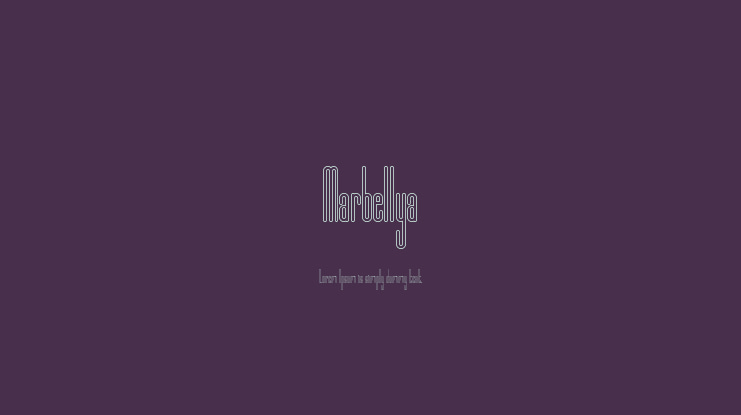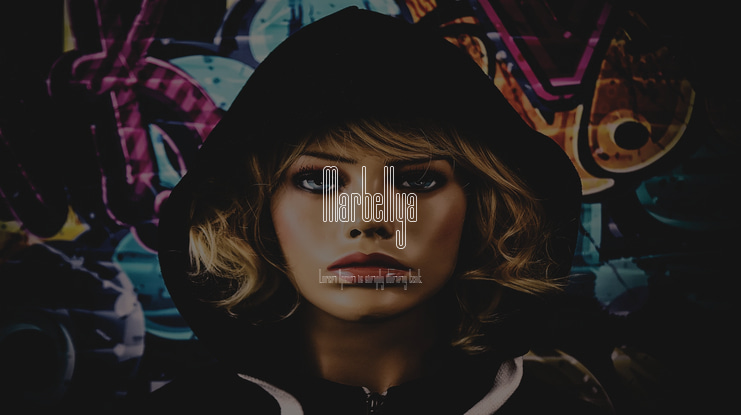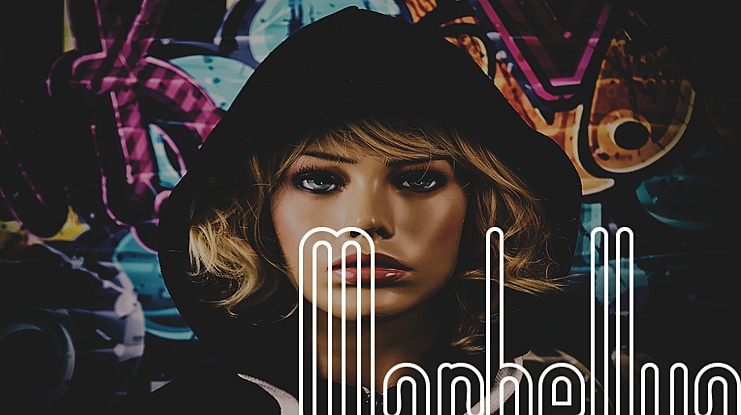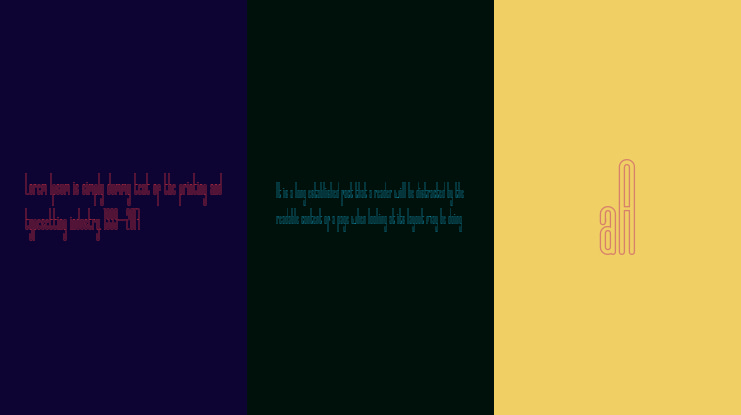
Marbellya Font Family
Toni Setiawan | Namara Creative Studio
Marbellya is Condensed Sans Serif Font with luxurious style. Available in 3 style Regular, Bold and Outline included alternate, ligature and multilingual support.